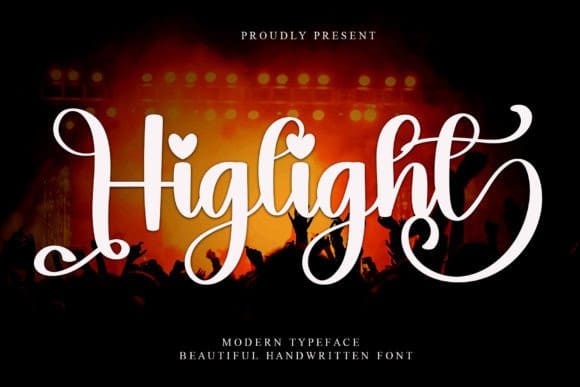
Higlight Script Font
Higlight Script Font is a cute script font with a joyful and energetic vibe. Its smooth and flowing letterforms create a sense of movement and dynamism, making it perfect for designs that need a lively and cheerful touch. Its legible and clean style adds a charming personal feel to any project.